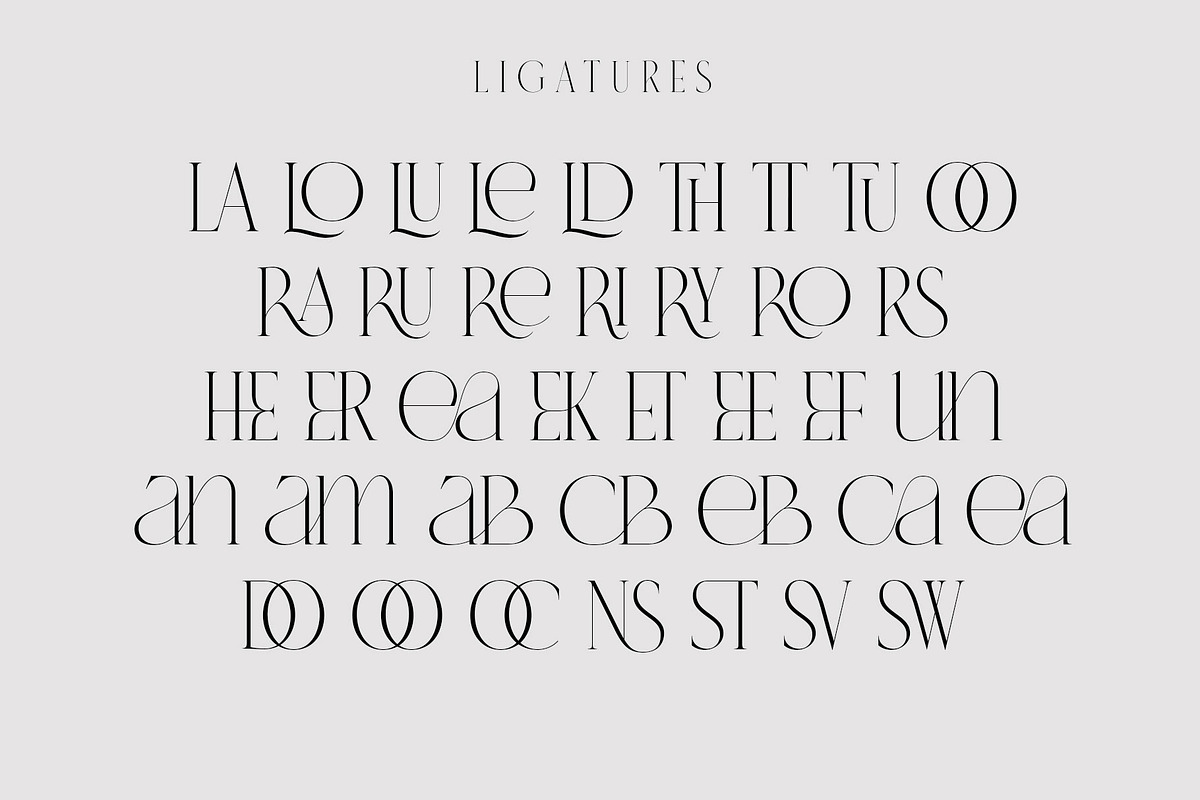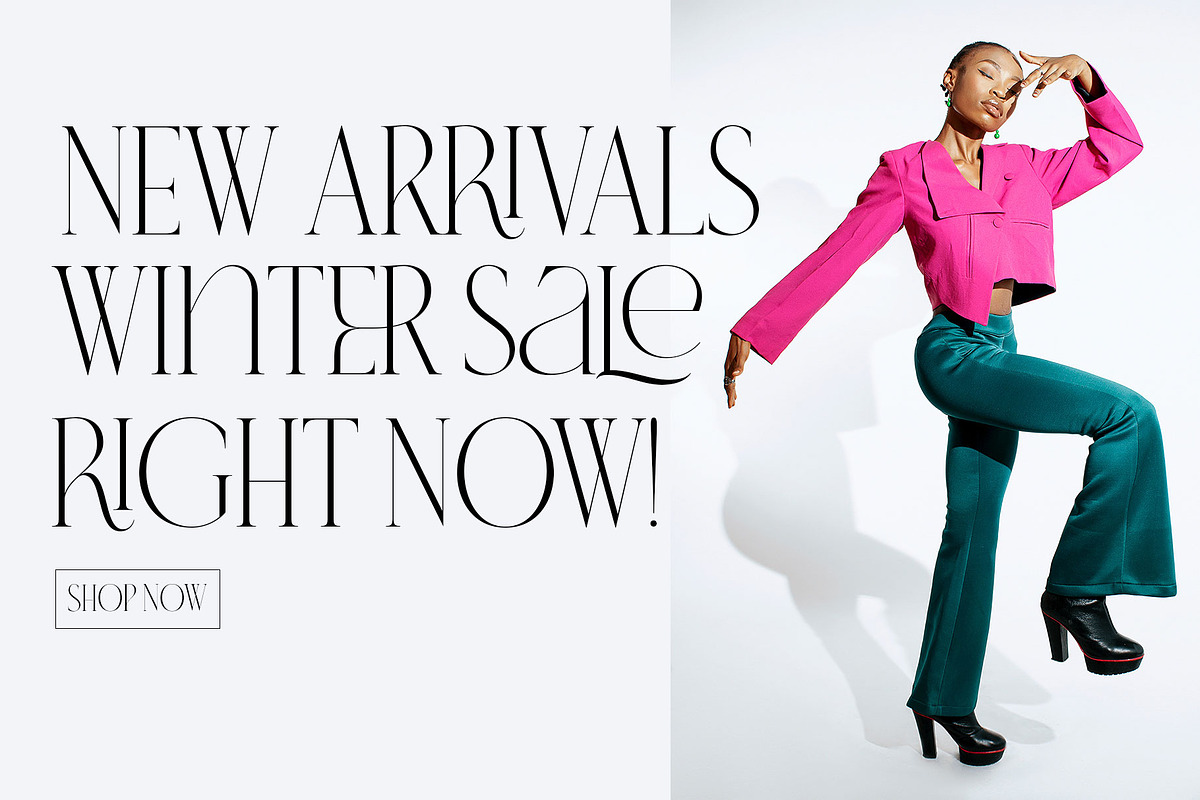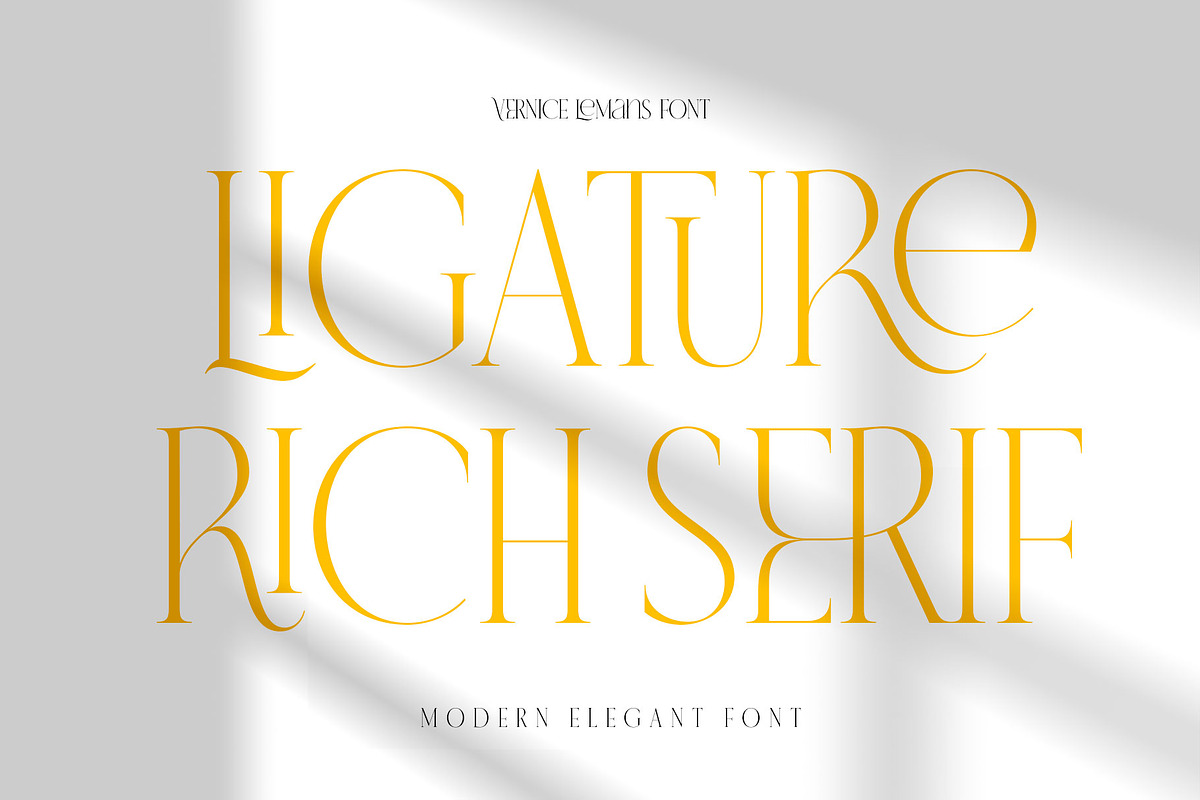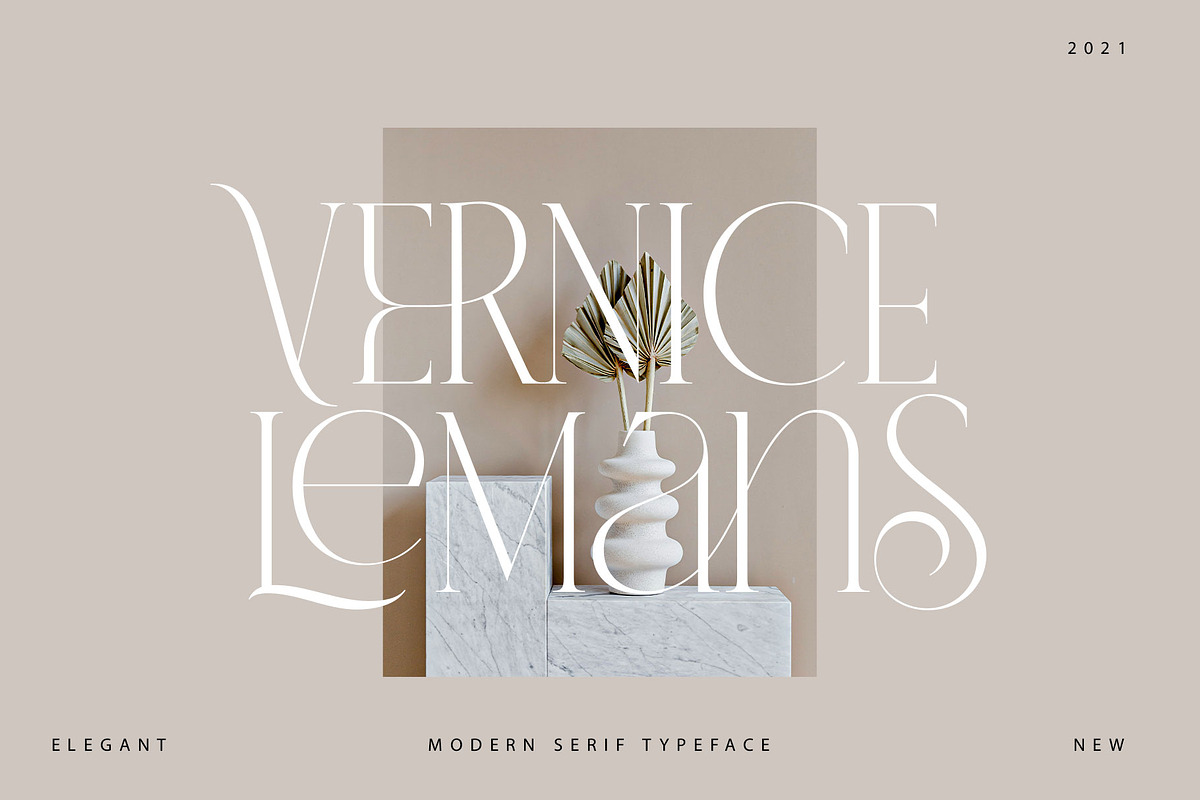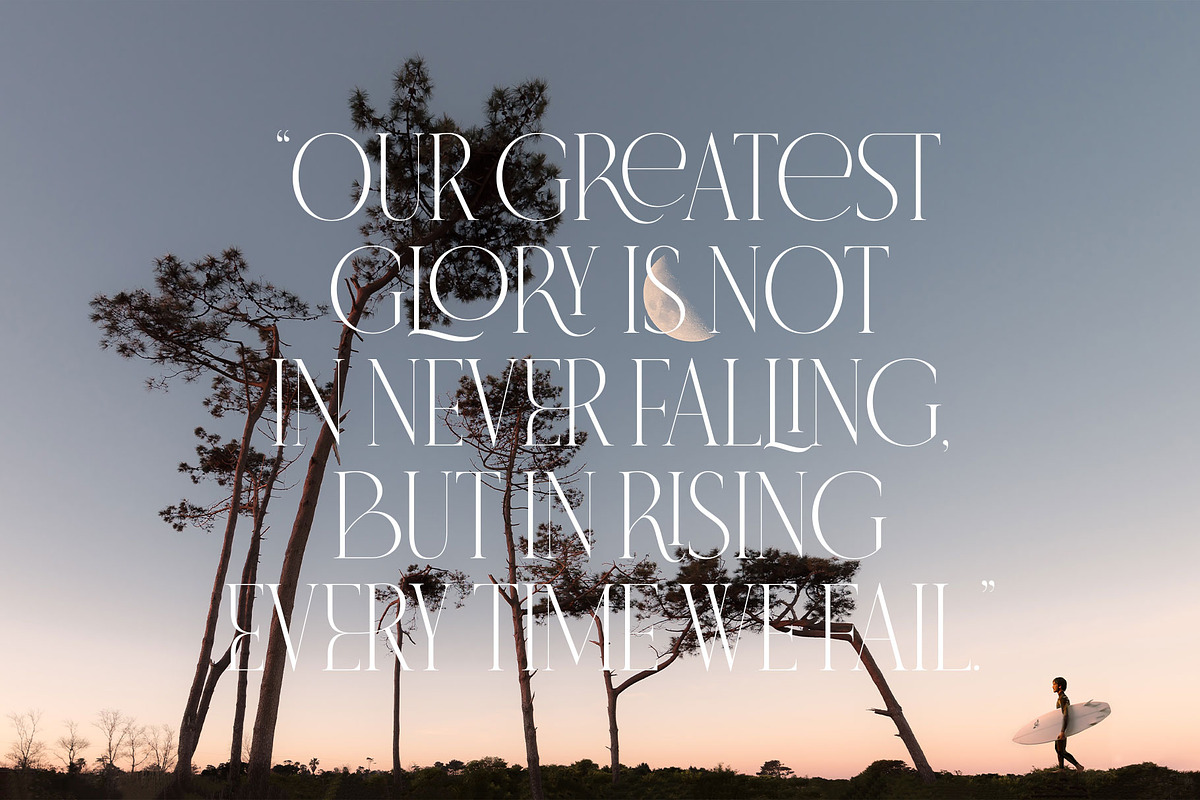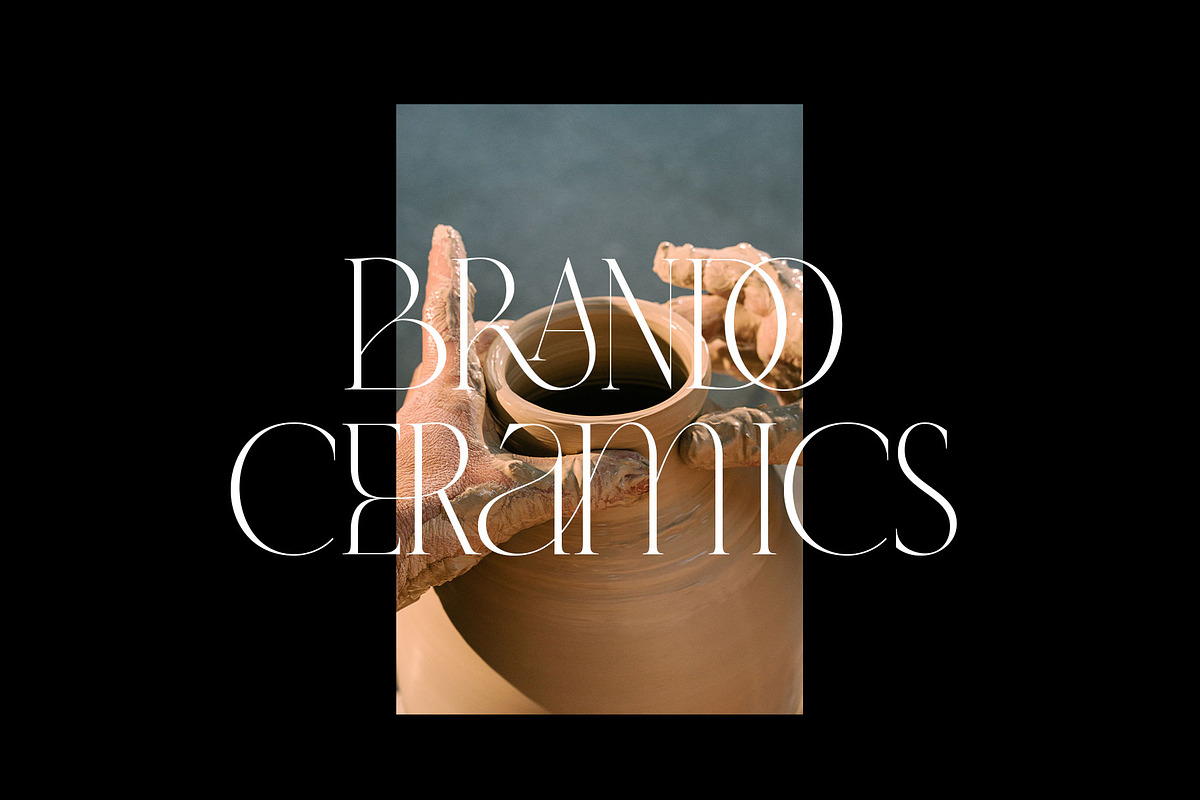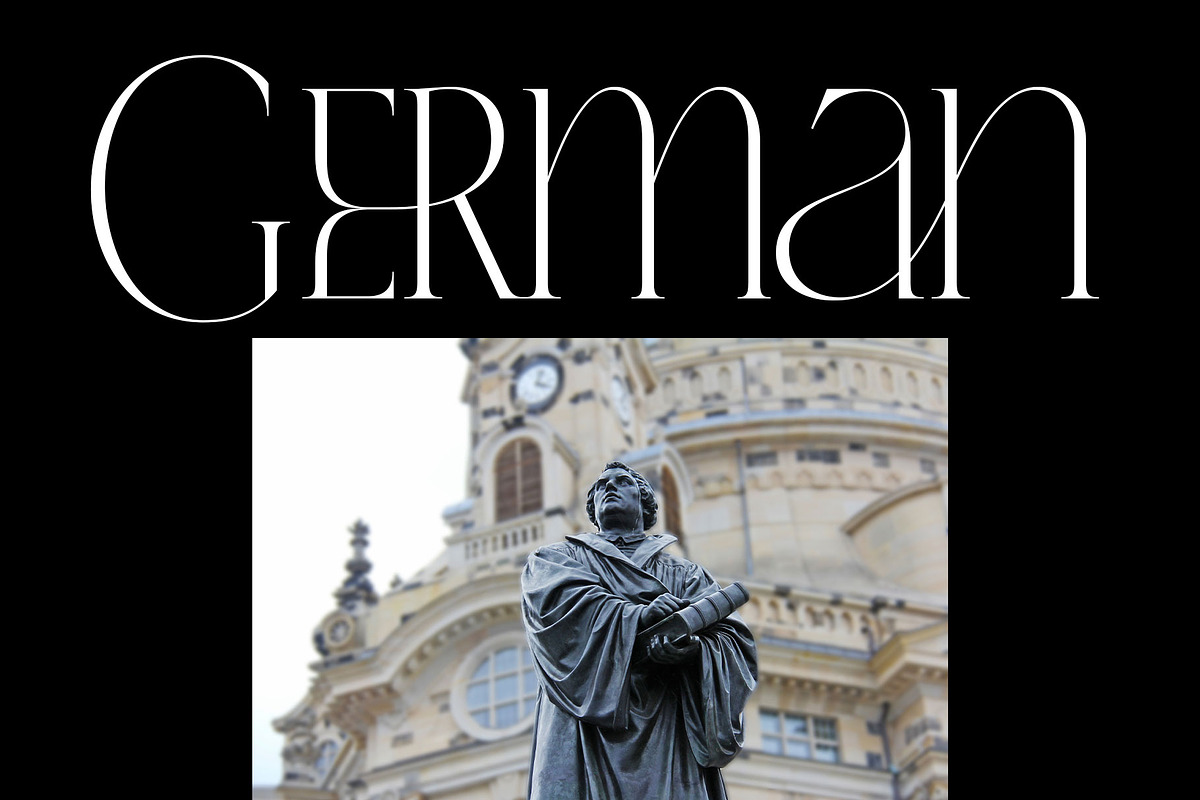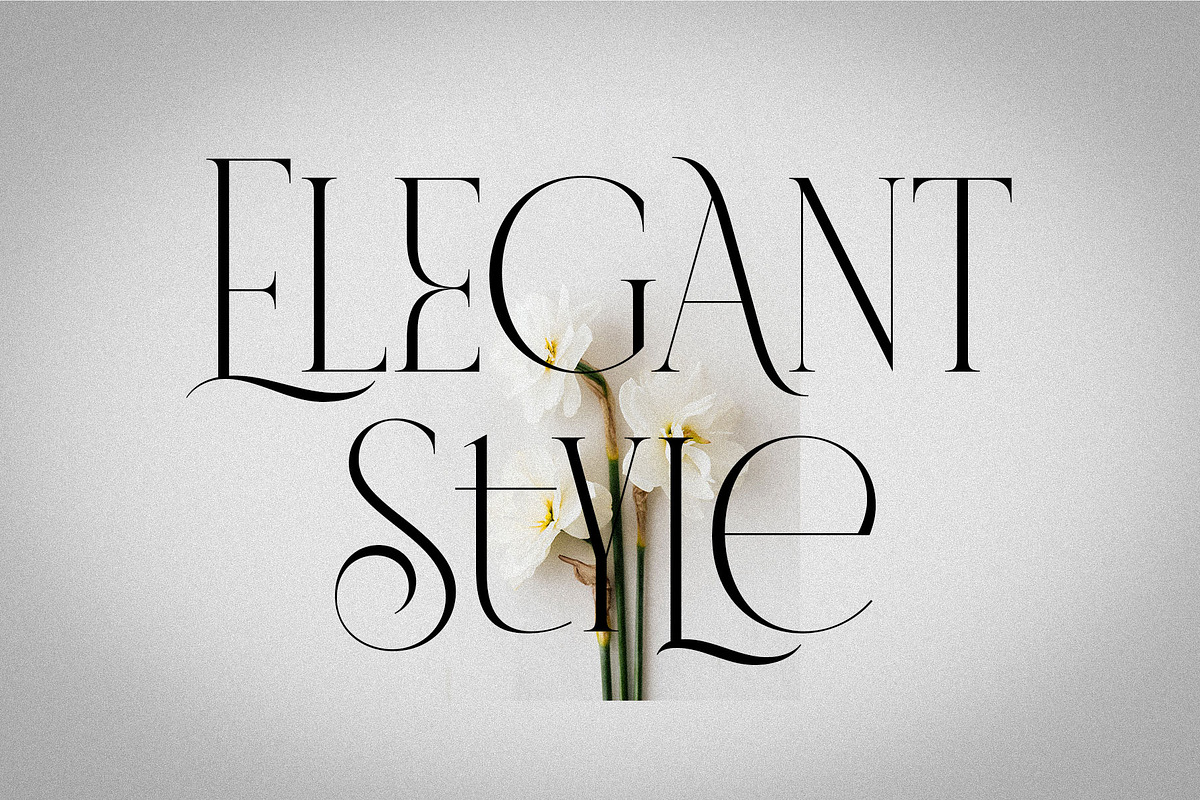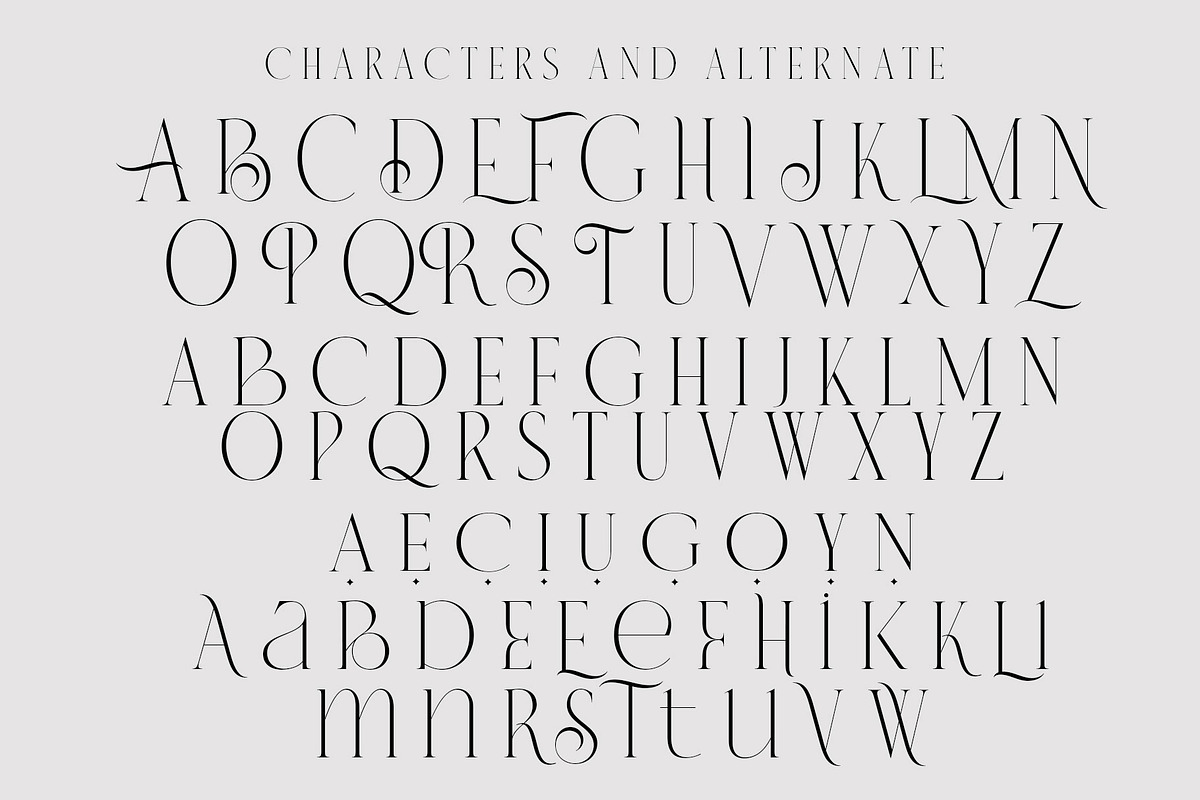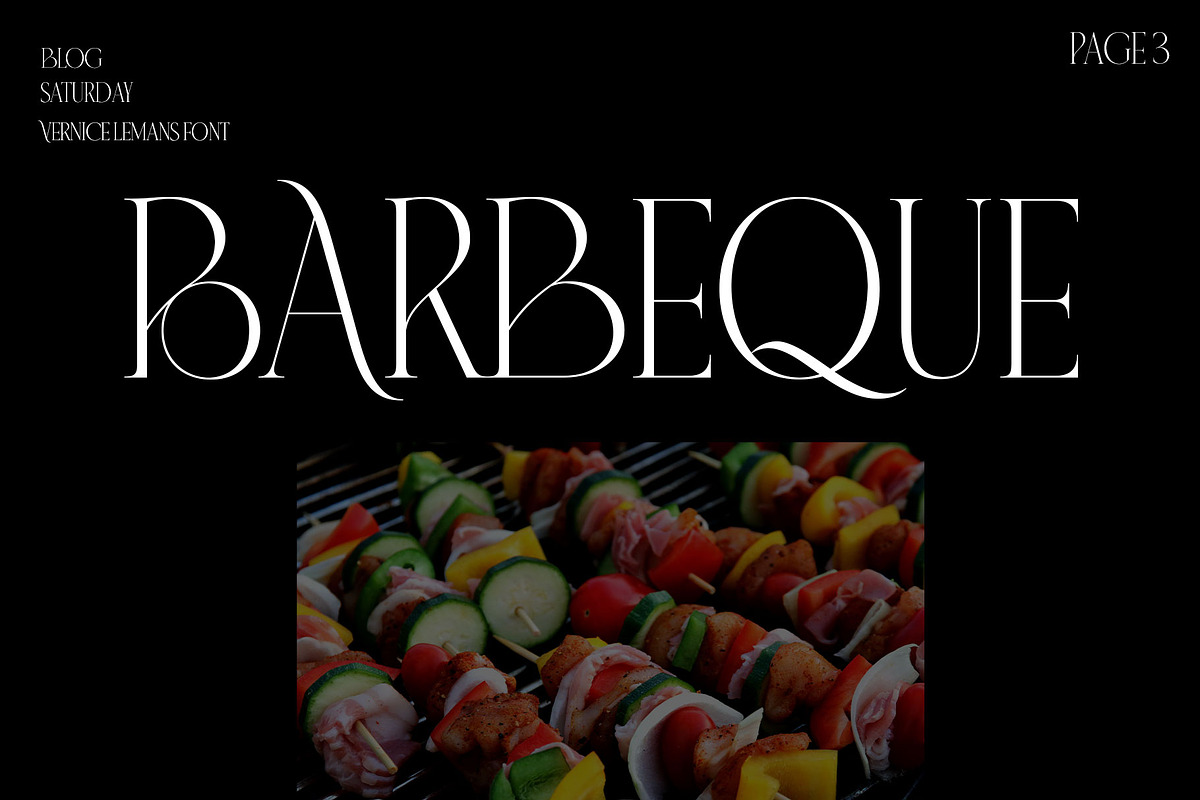
VERNICE LEMANS
Hello Everyone, on this occasion we would like to present a font with a unique style, which is vintage decorative style, of course, it will be very suitable for those of you who like vintage-style designs, coupled with some stylish alternate glyphs.
""Featured** Uppercase Lowercase Numeral Functional Stylistic Ligature Multilingual